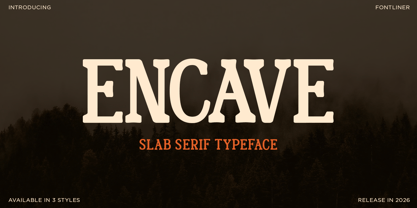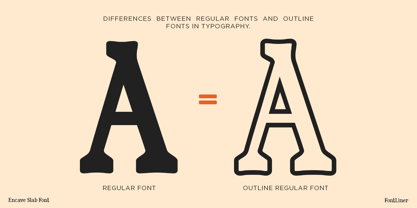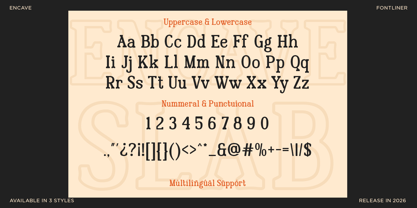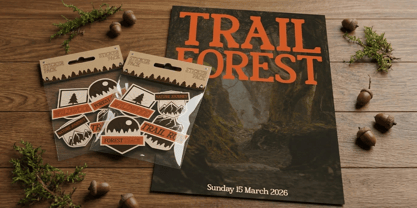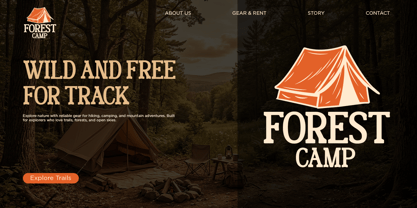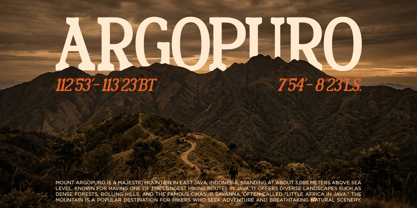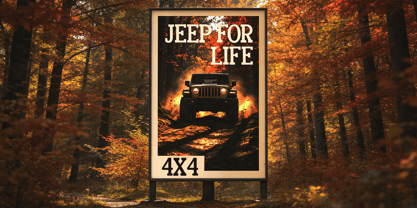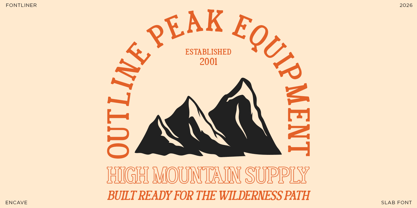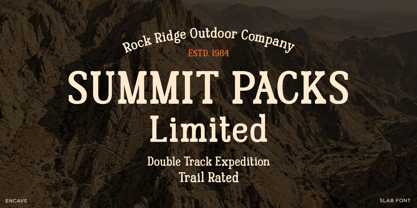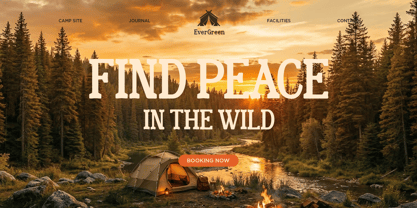
Encave Outline
The Encave Outline Font Family was designed by Ghina Luthfiarieska and published by Font Liner. Encave Outline contains 3 styles and family package options. More about this family
Encave is a bold slab serif typeface that seamlessly blends rugged character with modern structure. Drawing inspiration from strong, grounded typography, it delivers a powerful visual presence while maintaining a clean and contemporary feel. Its sturdy serifs and confident letterforms make it ideal for designs that demand attention and authority. Built for impact, Encave excels in branding, posters, headlines, and packaging. Whether you're crafting outdoor-themed visuals, vintage-inspired layouts, or bold modern identities, this typeface adapts effortlessly to your needs. It embodies a masculine, solid tone while still providing enough refinement for versatile creative applications. With multiple styles available, Encave offers designers the flexibility to explore various moods within the same robust foundation. From striking headlines to structured layouts, it ensures consistency, readability, and a distinctive visual identity across all design projects.